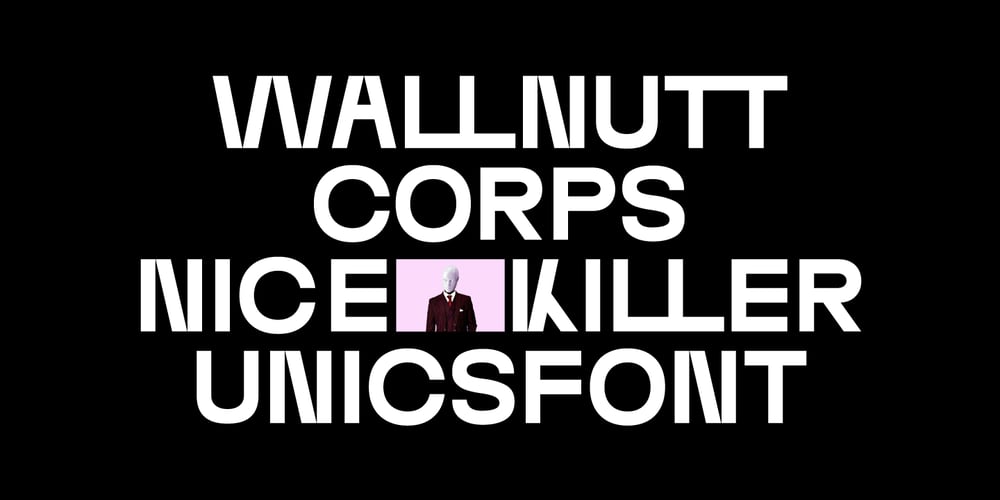
Wallnutt Corps
Wallnutt Corps font
Wallnutt Corps Font Family was designed by Anastasia Piven and published by Here East Fonts. Wallnutt Corps contains 1 styles and family package options. WALLNUTT CORPS is a cool, bold and powerful super modern unicase font, designed for maximum visual and emotional impact. It’s great for social media, headlines, large-format print, editorial, branding, posters, fashion designs and websites — everything that strives for being confident and yolo. Definitely has a personality!